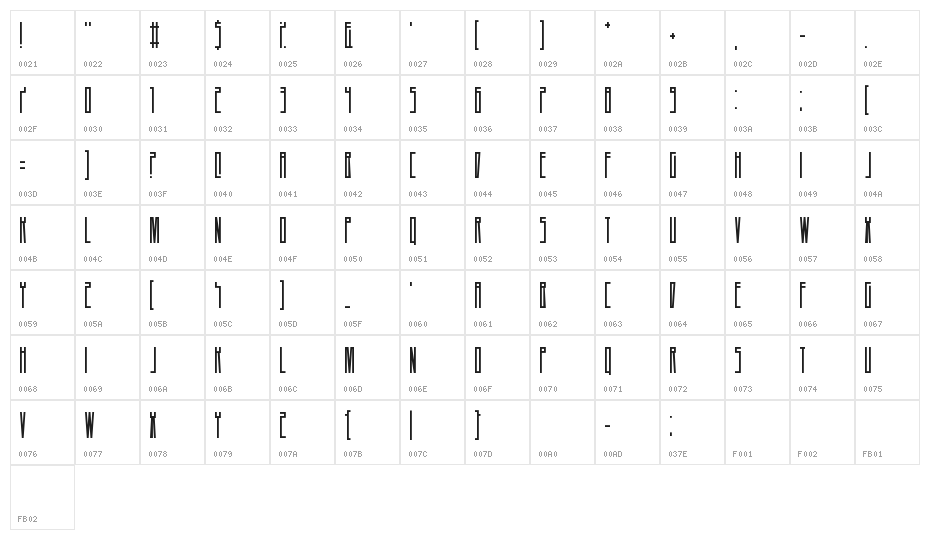
A Dash of Salt Font
A Dash of Salt Description
This font features a tall, narrow design with a distinctly modern and geometric aesthetic. The characters are elongated and maintain a consistent vertical alignment, giving it a sleek and sophisticated appearance. The uppercase and lowercase letters share a similar structure, emphasizing uniformity and balance. The numerals and special characters are designed to match the overall style, ensuring a cohesive look across all elements. The font's clean lines and sharp angles make it suitable for contemporary design projects that require a bold and impactful visual presence.
| Proposed Projects | Ideal for branding, posters, and editorial design where a modern and striking look is desired. |